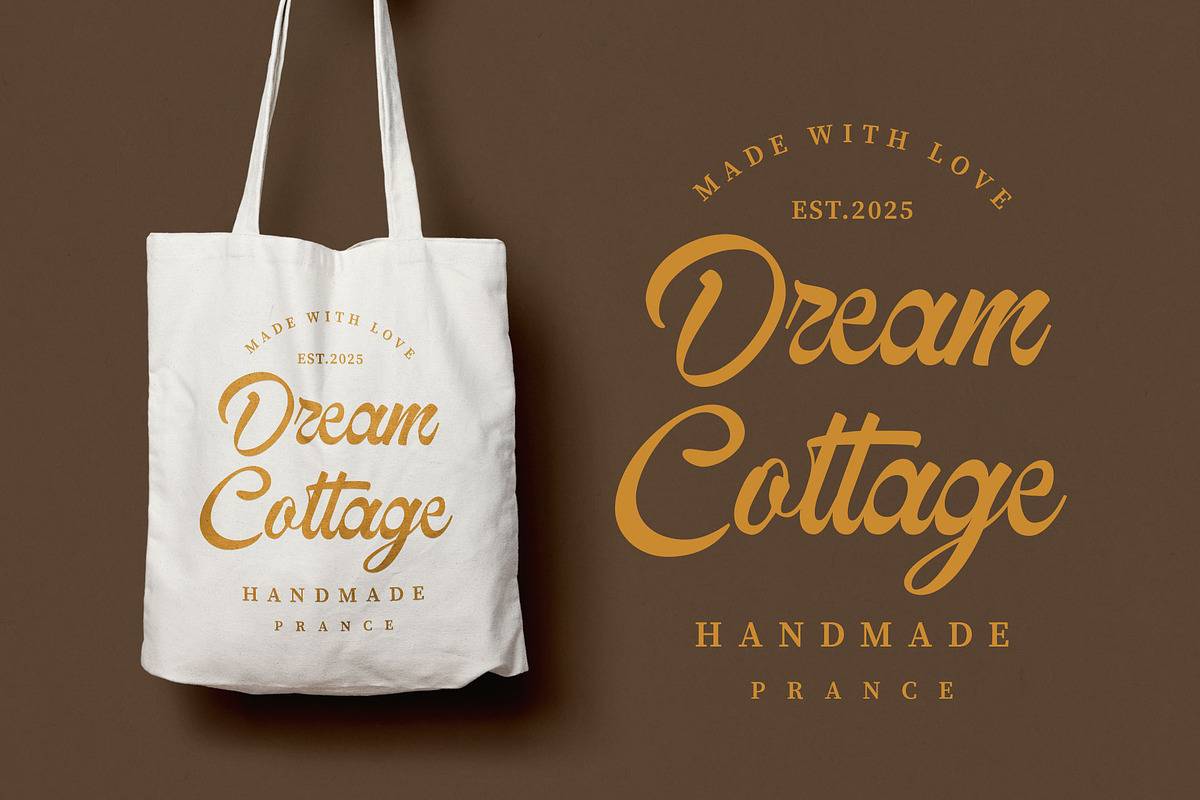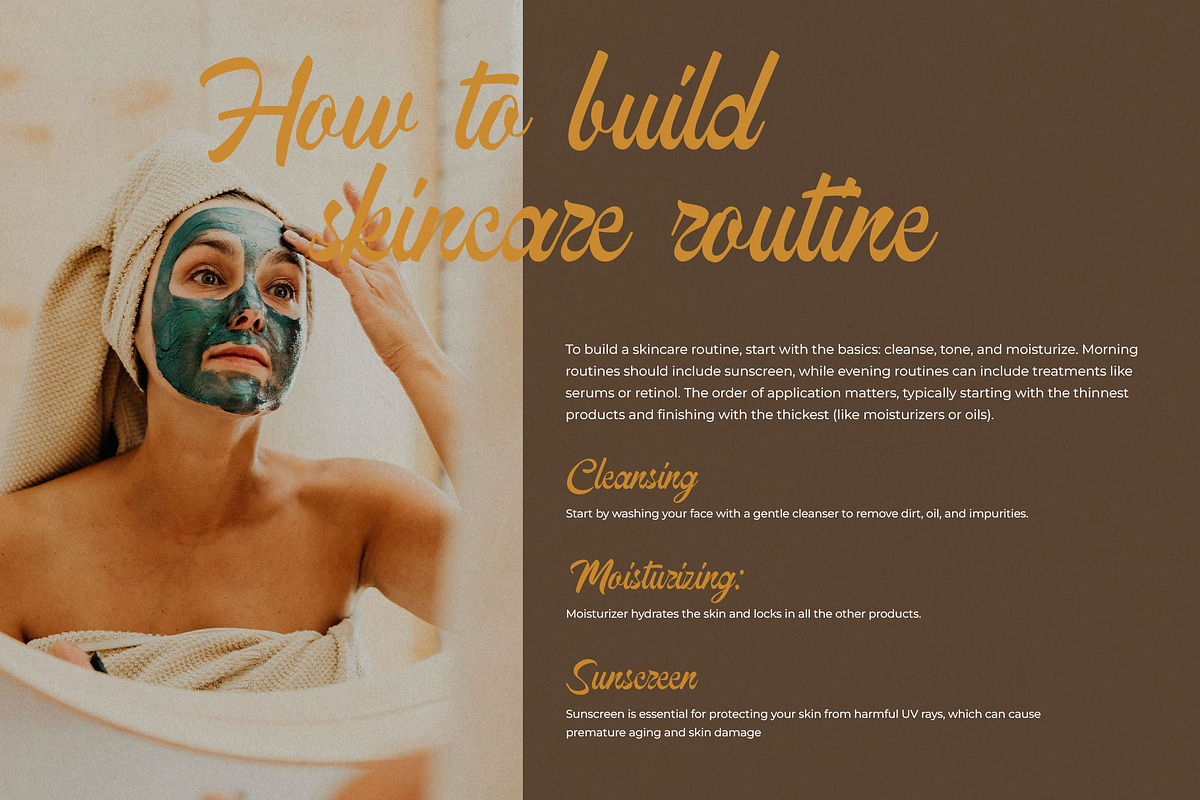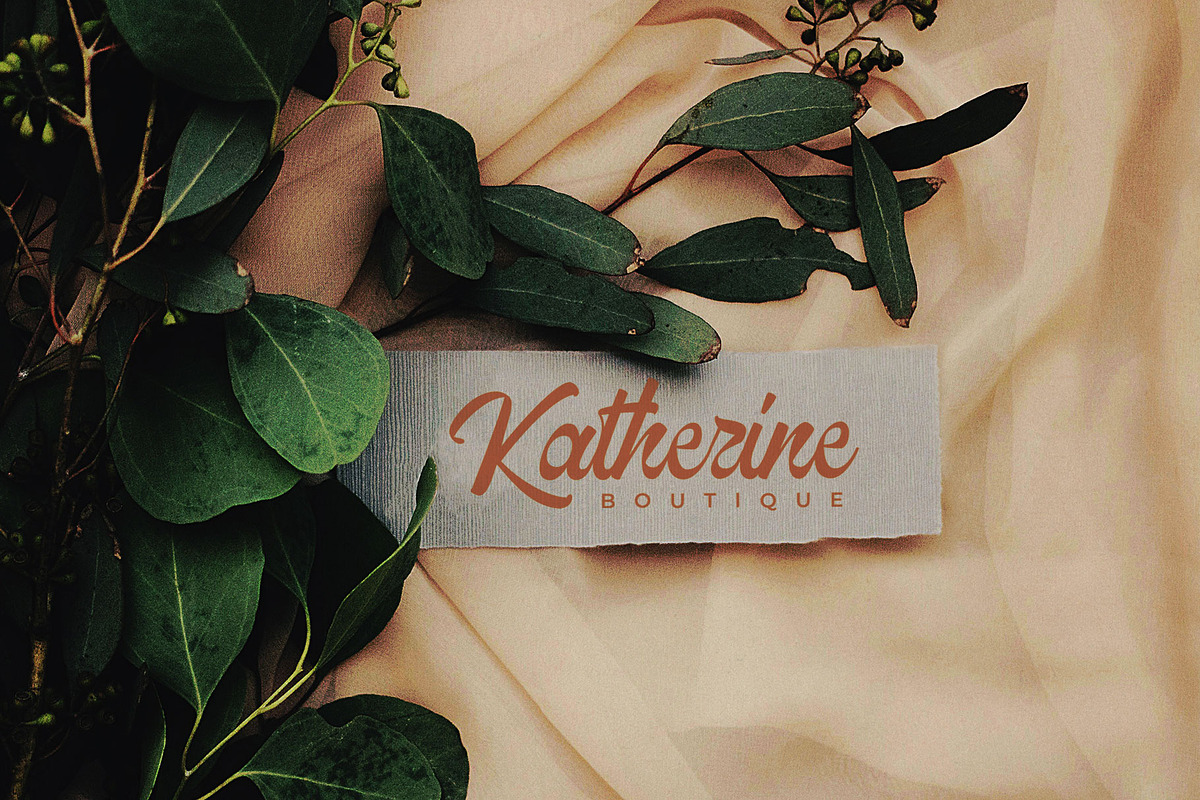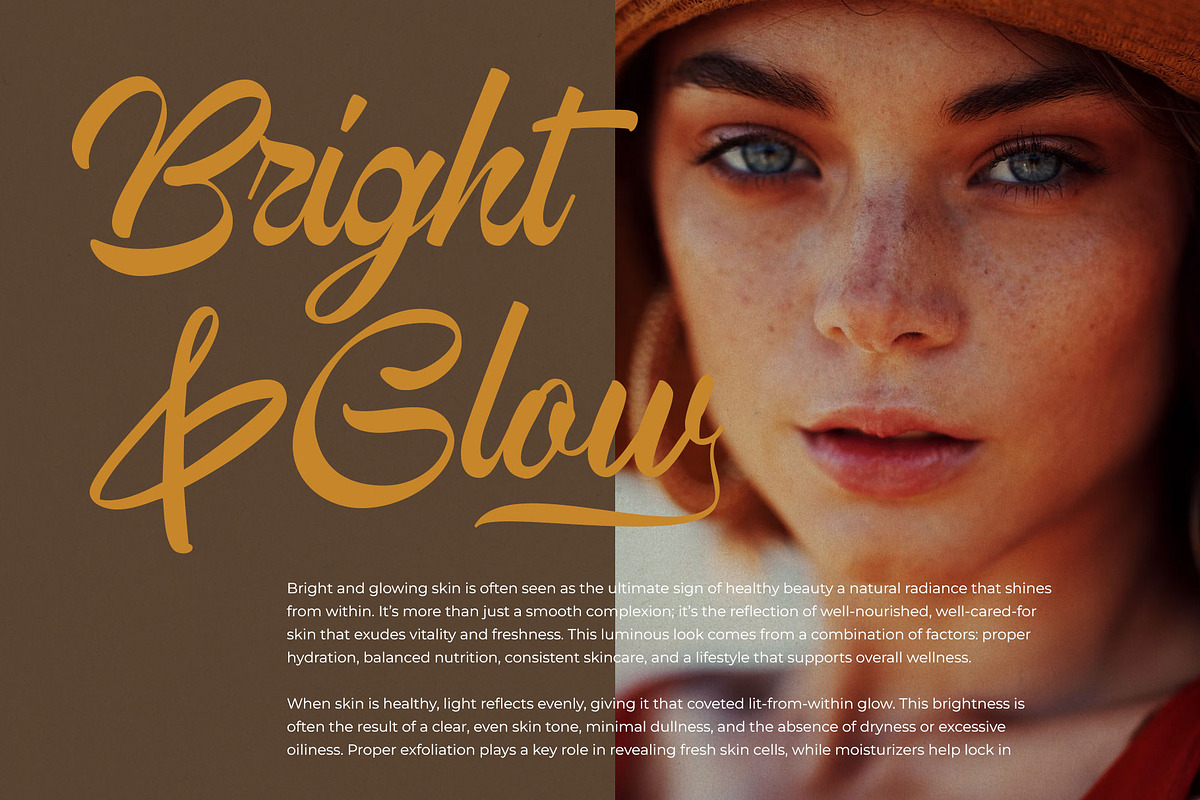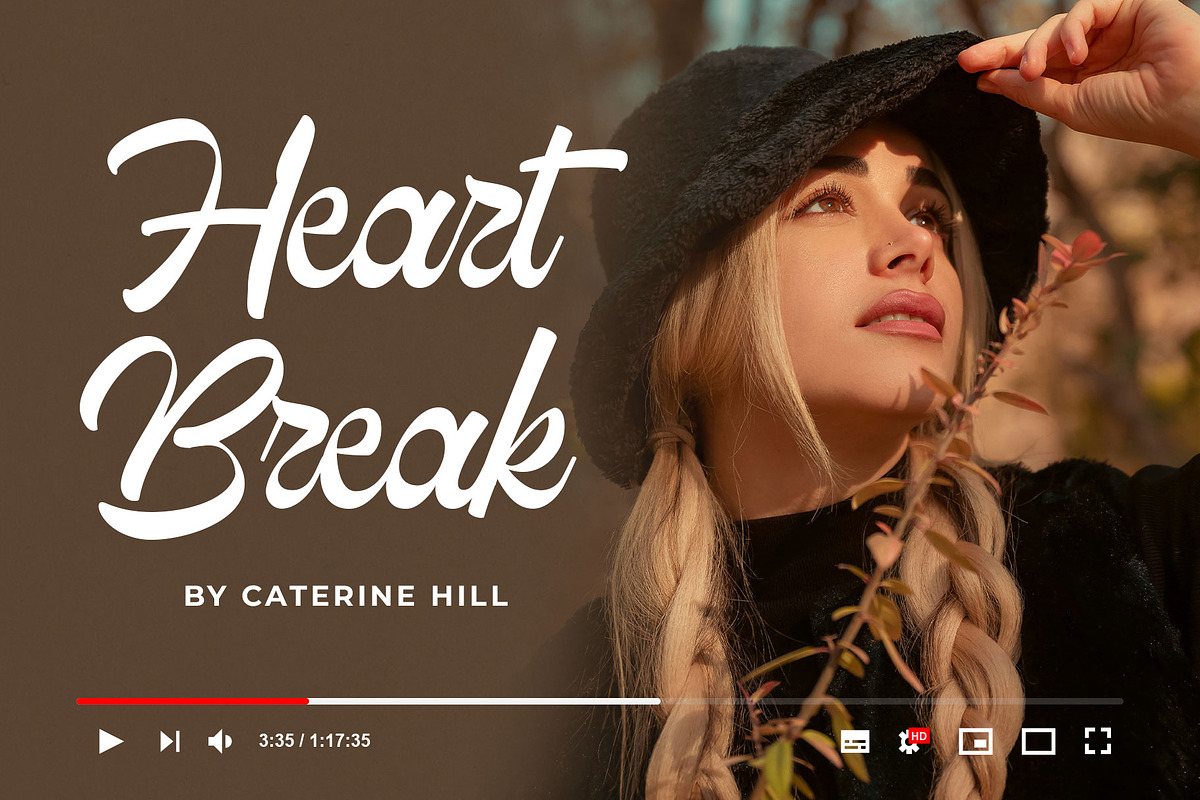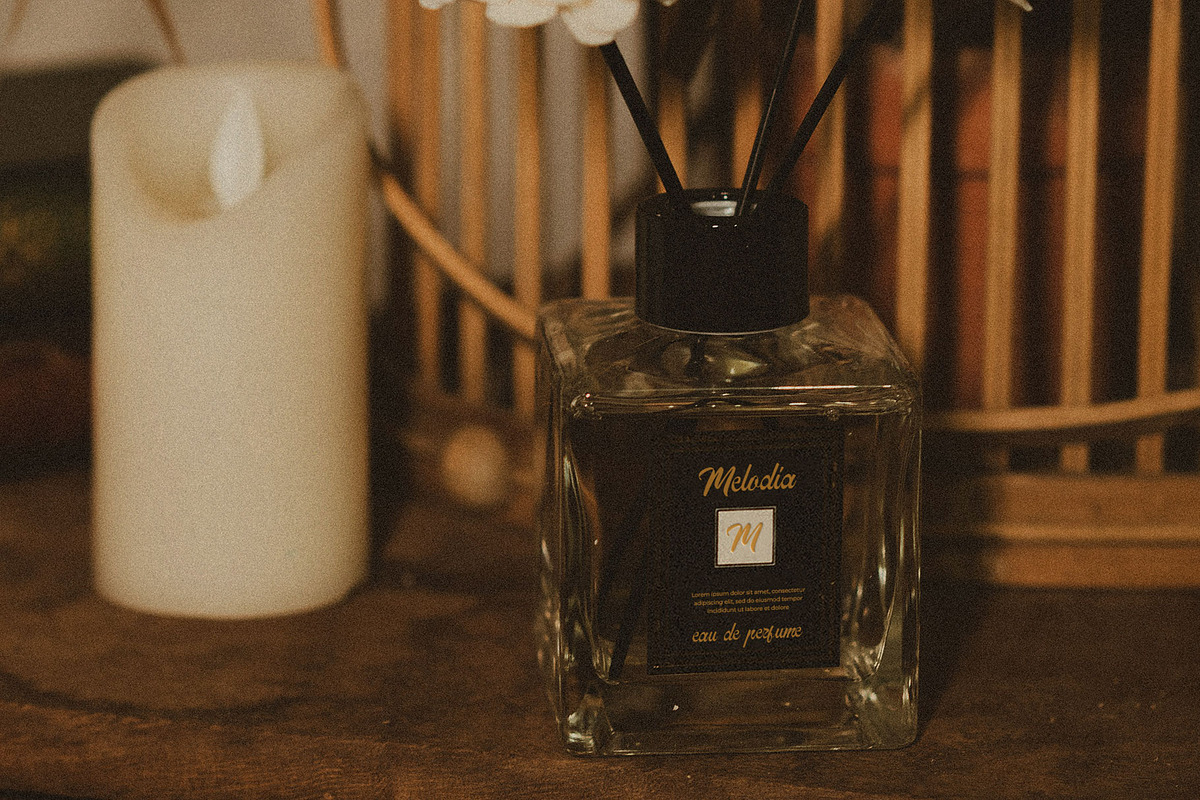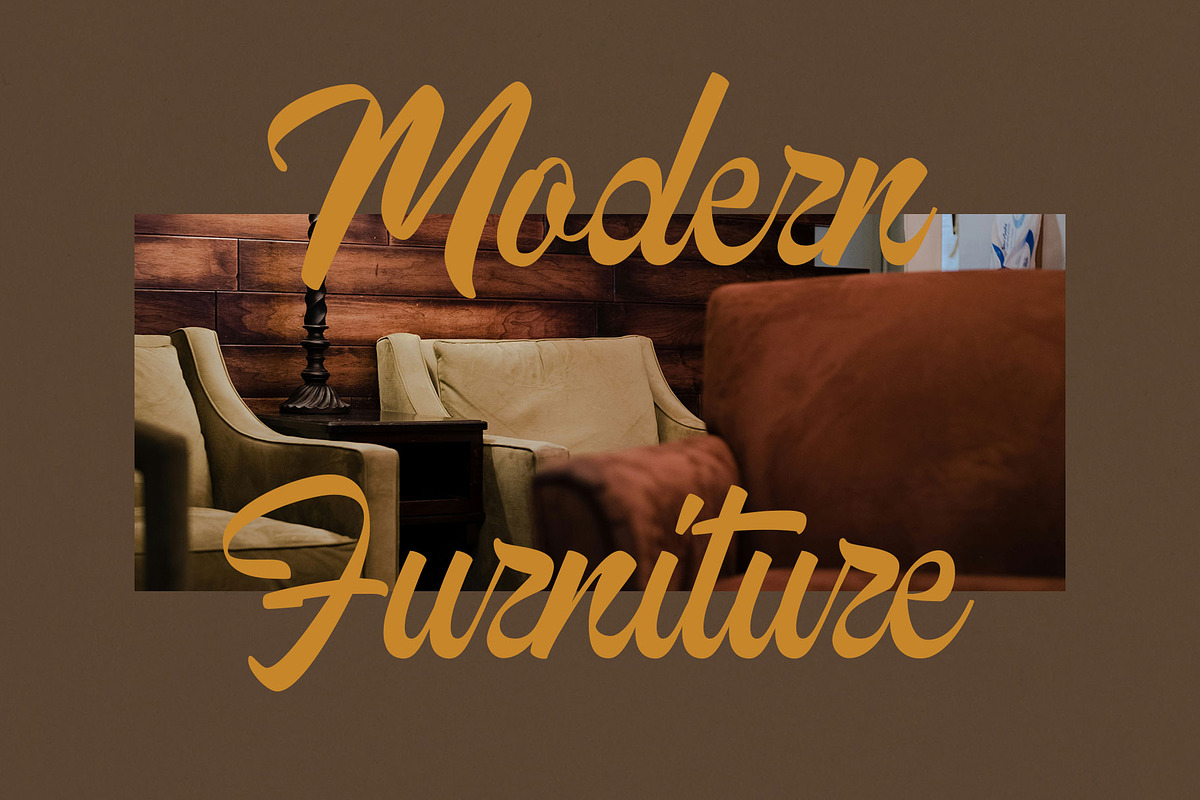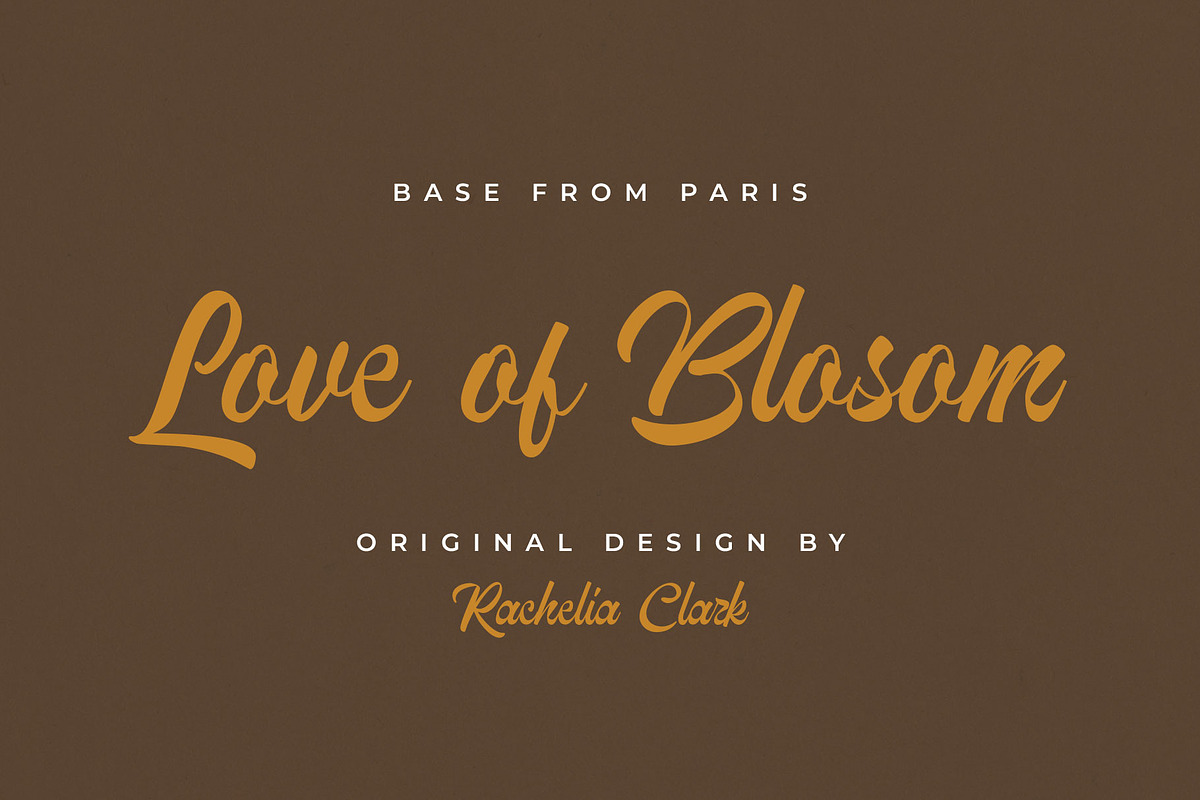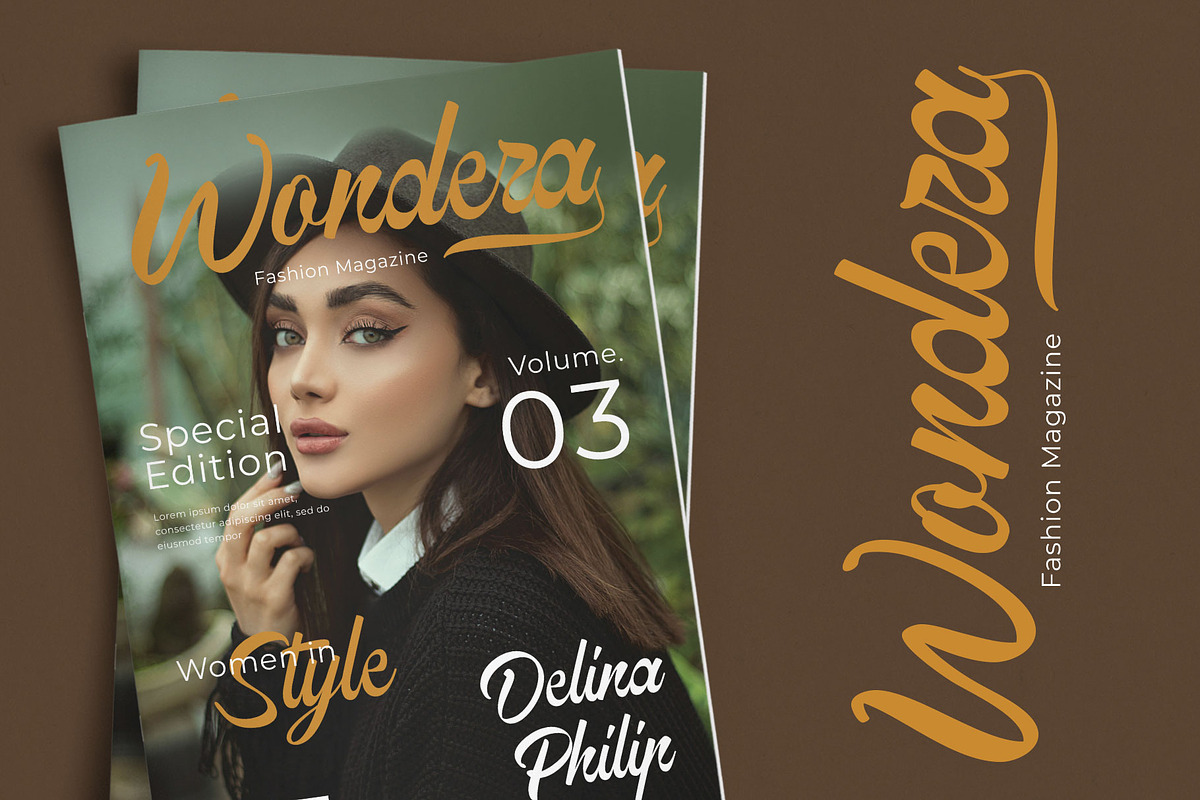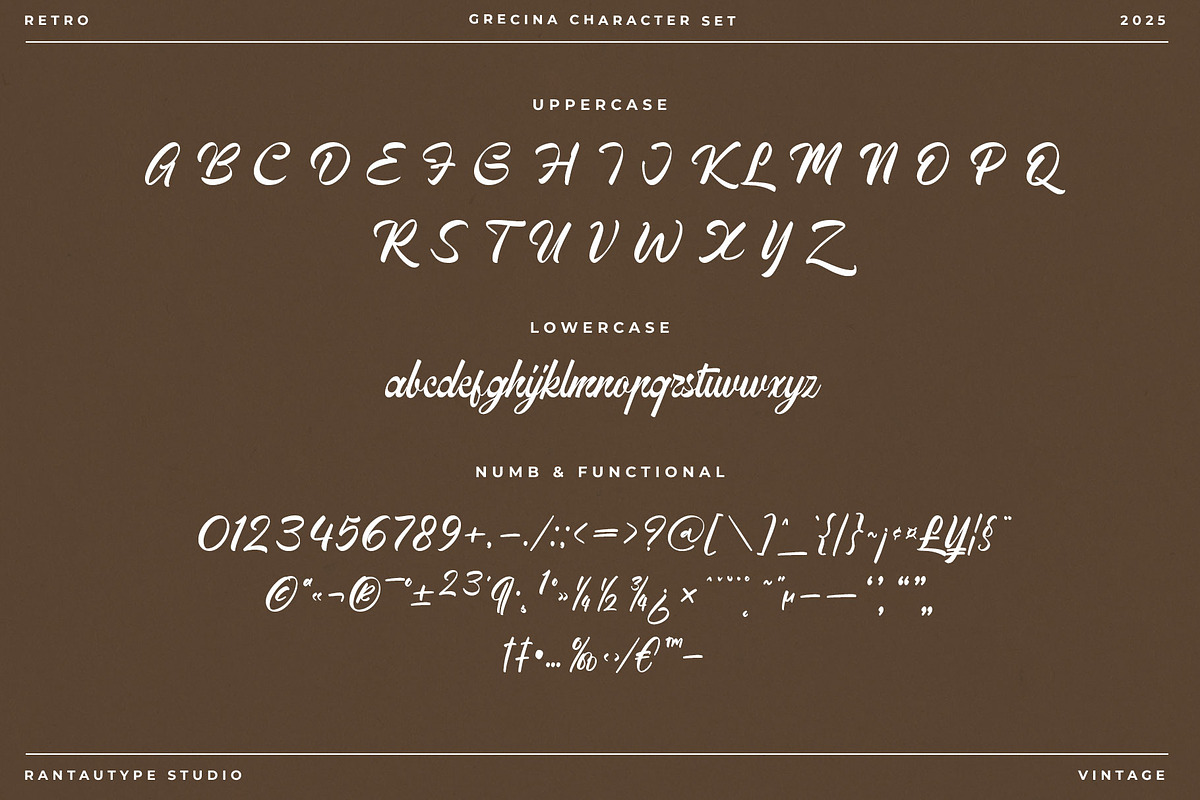
Grecina Vintage Script Font
Grecina is vintage script font with authentic style. Grecina come with contrast bold character to make a nostalgic look. Grecina is a perfectly choice for any creative endeavor, creating, modern, lifestyle design such as logotype, title, cover, branding, invitations, wedding designs, display and magazine, social media posts, advertisements, printed quotes, product packaging, corporate brand, product designs, labels, photography, watermarks, special events and any other project with retro touch.
- Standart Glyphs
- Alternate and ligature
Fonts include Multilingual Character for: Afrikaans, Albanian, Asu, Basque, Bemba, Bena, Breton, Chiga, Cornish, Dutch, English, Estonian, Filipino, Finnish, Friulian, Galician, Gusii, Indonesian, Irish, Italian, Kabuverdianu, Kalenjin, Kinyarwanda, Luo, Luxembourgish, Luyia, Machame, North, Oromo, Portuguese, Quechua, Romansh, Rombo, Rundi, Rwa, Samburu, Sango, Sangu, Scottish, Gaelic, Sena, Shambala, Shona, Soga, Somali, Spanish, Swahili, Swedish, Swiss, German.